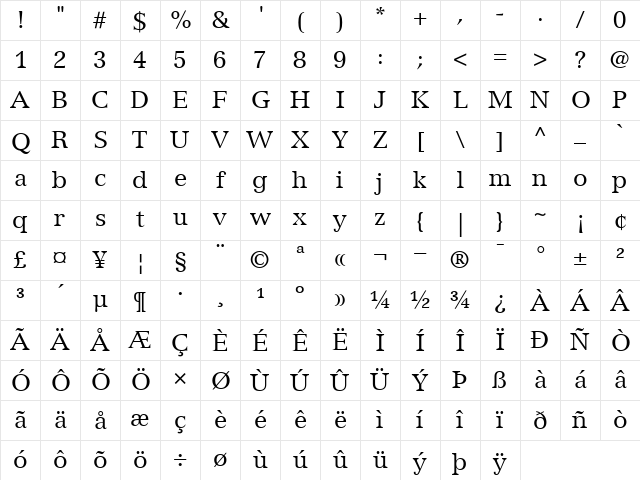
Versailles55 Roman
Design Context for Versailles55
Versailles55 is a composed and adaptable typeface that performs quietly and consistently across a wide range of design contexts.
Pro Tip: Use Versailles55 in both headline and body roles to test its range before committing to a single application.